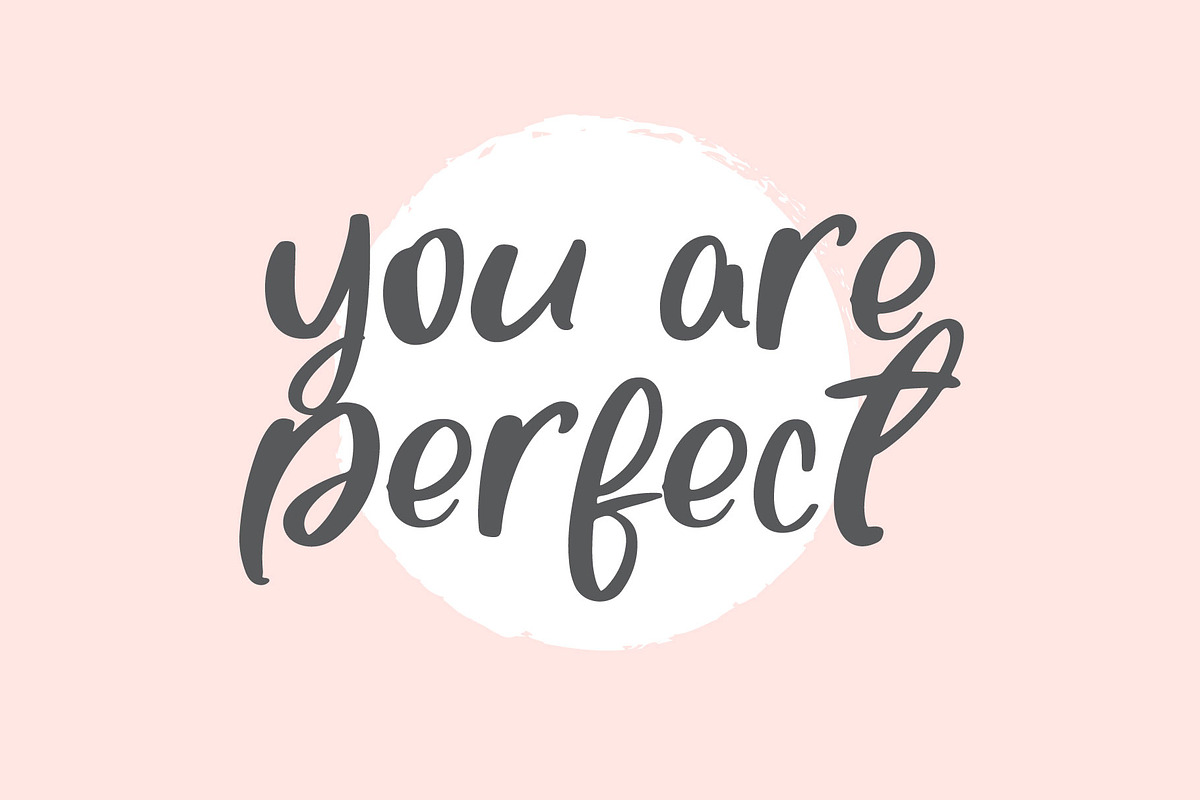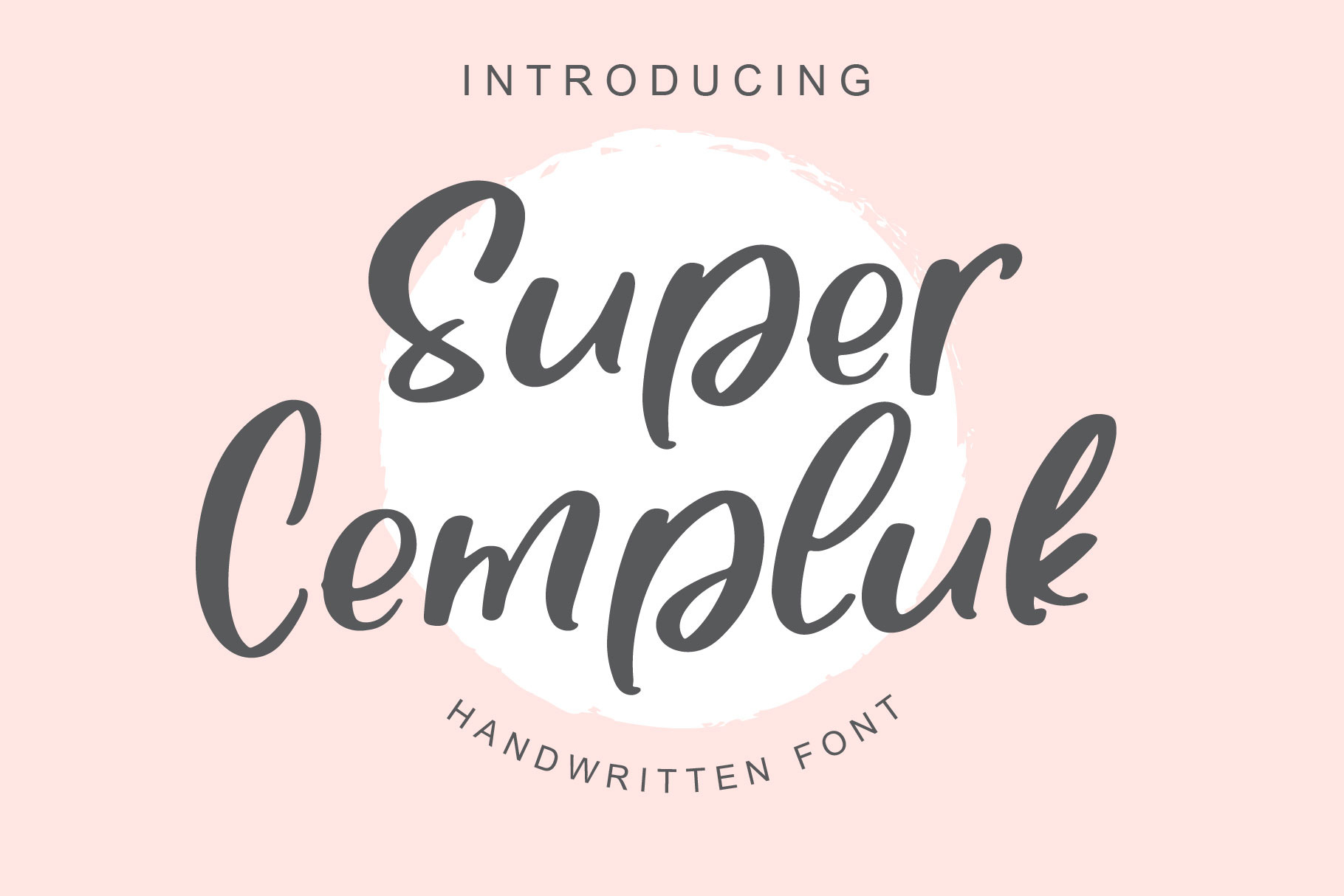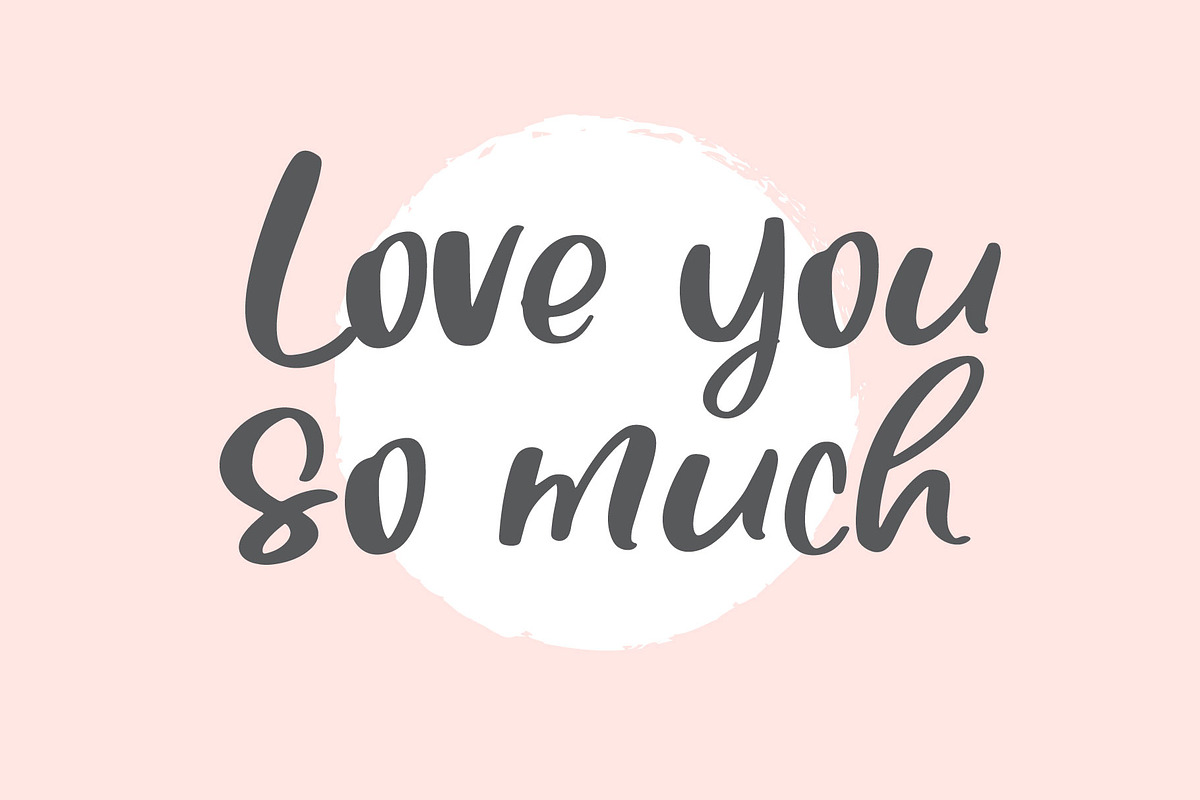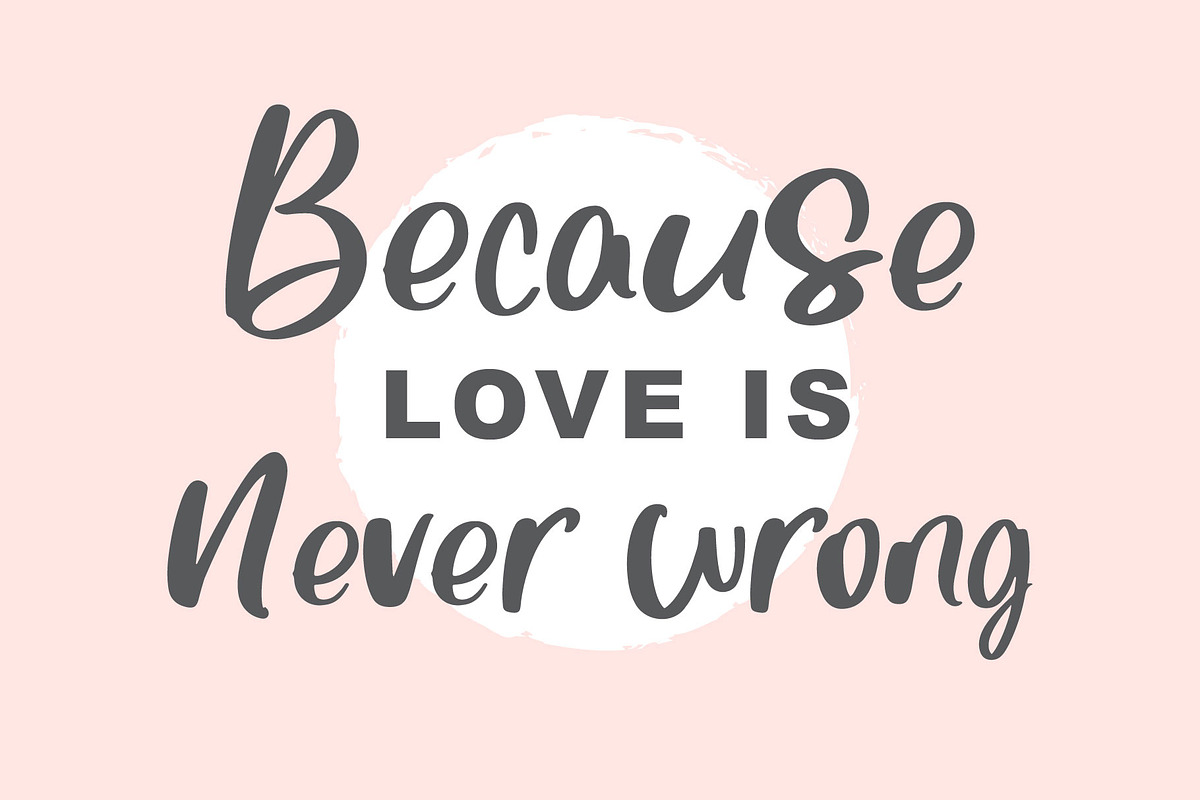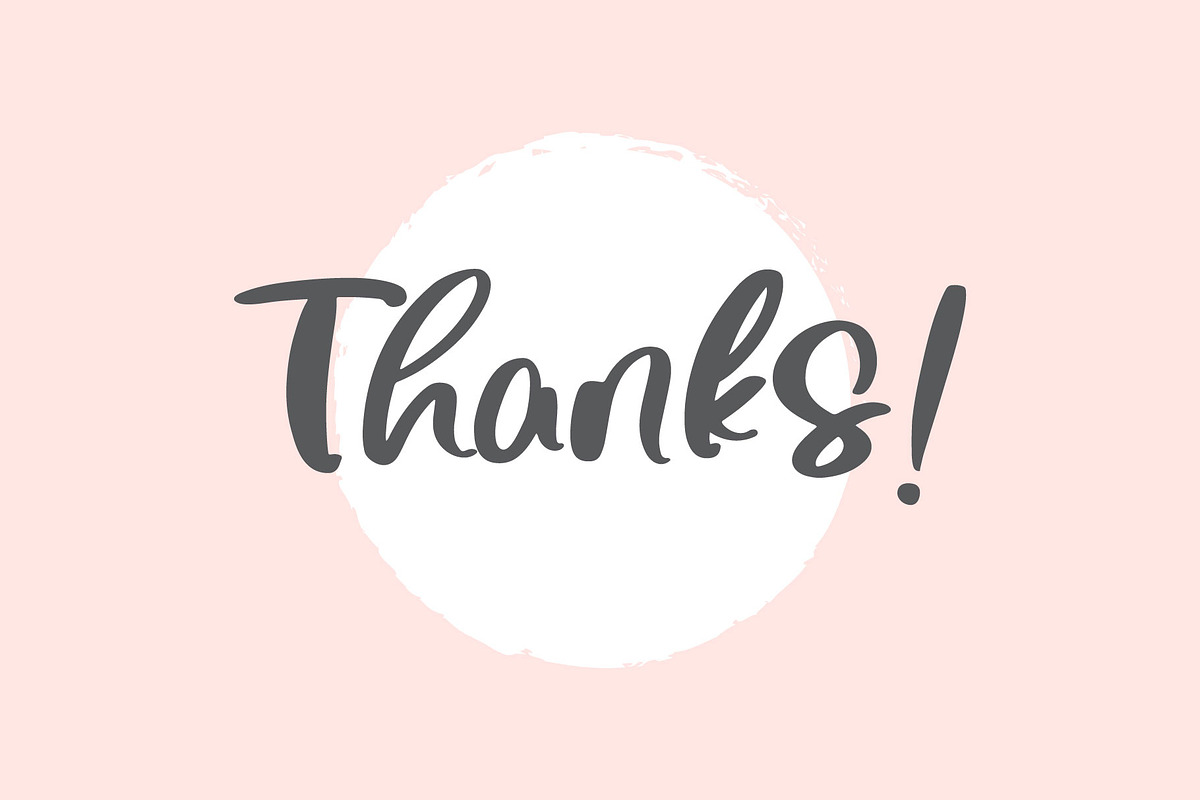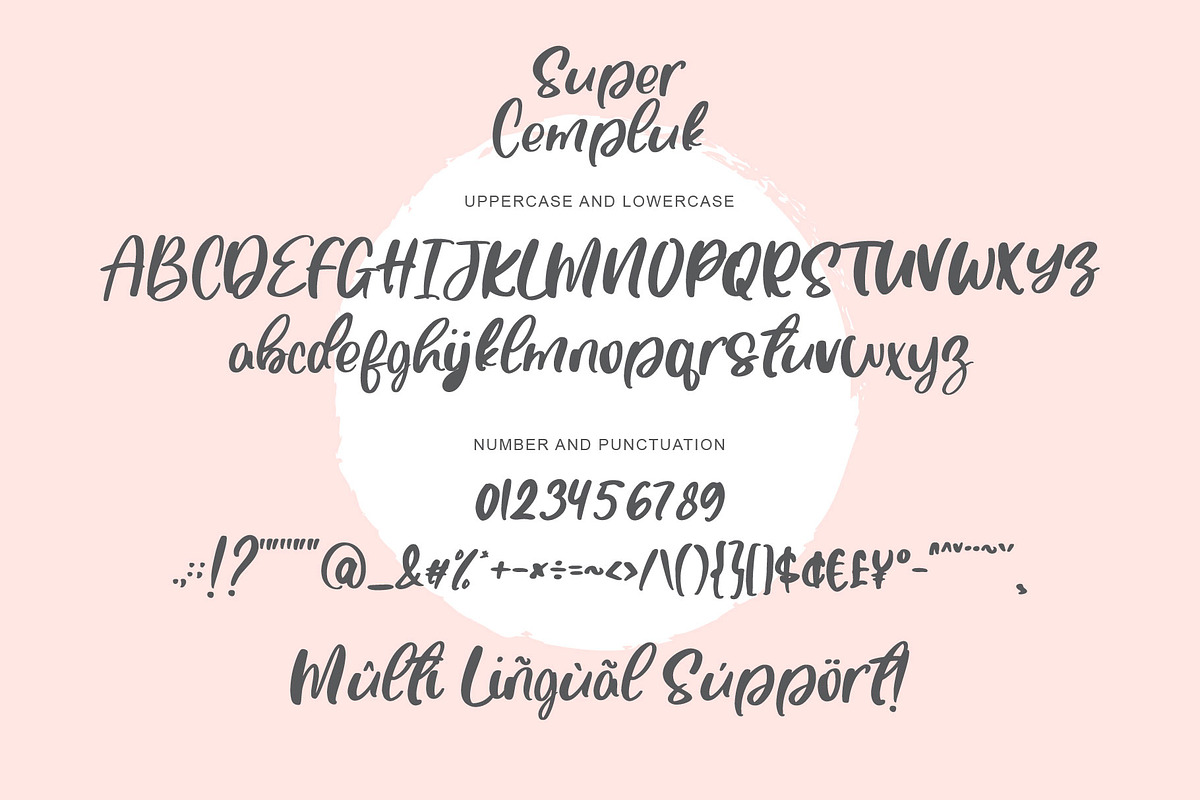
Super Cempluk - Handwritten font
Hello everyone Introducing our new font called Super Cempluk handwritten font, I am very happy when create this cute font, and I see most of the lowercase letters look short and fat, I think this is very funny. so I gave him the name cempluk, in my environment cempluk is the name for a small child whose body is a bit fat. Then I think Super Cempluk is an handwritten font with lovely and cute style
Super Cempluk comes with uppercase letters, lowercase letters, multilingual support, numbers and punctuation